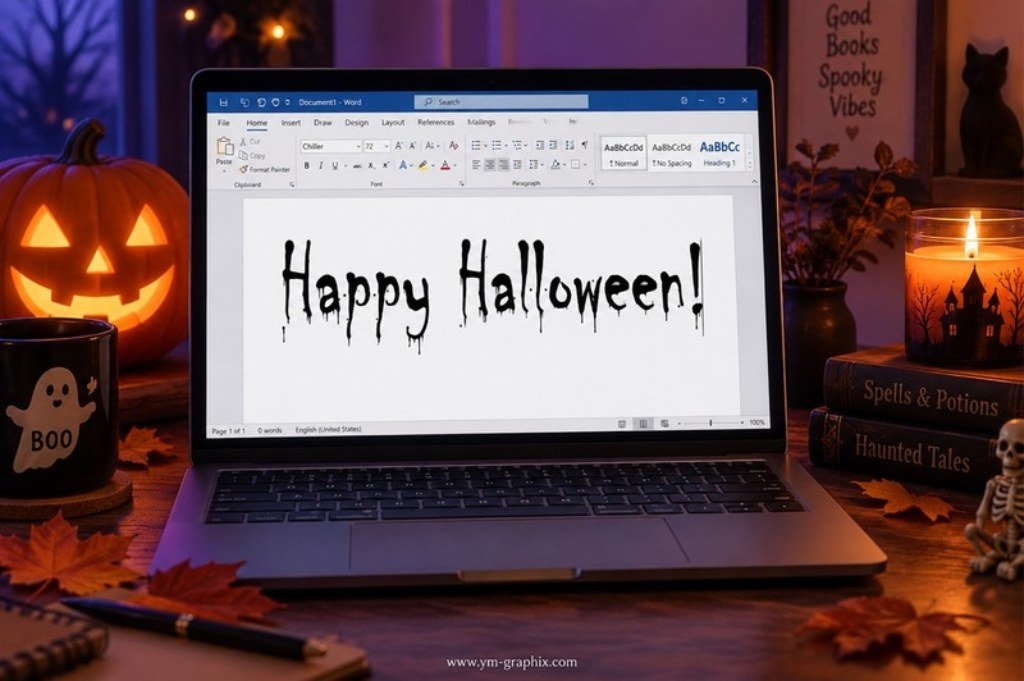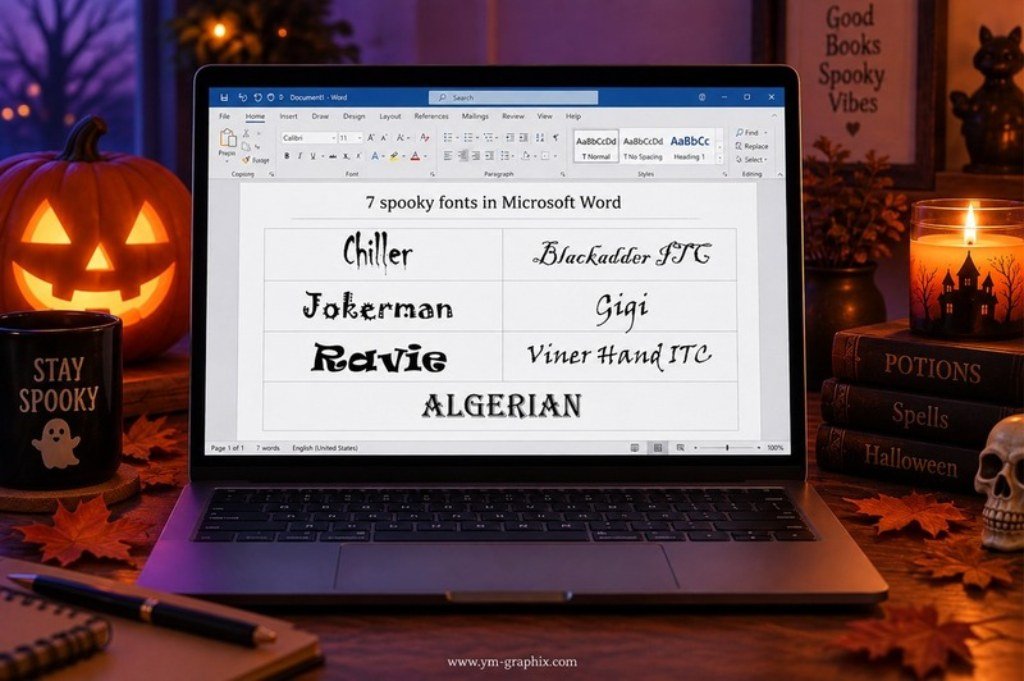
What Is a Spooky Font in Microsoft Word? 7 Halloween Fonts to Try
Quick answer
Chiller is one of the clearest spooky fonts you can use in Microsoft Word. Its irregular, scratchy letterforms feel instantly horror-themed. If you want a darker, more elegant look, try Blackadder ITC; for playful Halloween projects, Jokerman or Ravie can work better.
If you searched “what is a spooky font in Microsoft Word?”, you probably do not need a giant font download list. You need a font that is already available in Word—or easy to activate in Microsoft 365—and a quick way to match it to the mood of your Halloween project.
The short version is simple: Chiller is the best first font to try for a classic scary look. But “spooky” can mean several things: dripping horror, haunted handwriting, gothic elegance, witchy whimsy or cartoon-monster fun. The best Word font depends on which version of spooky you want.
What is a spooky font in Microsoft Word?
A spooky font in Microsoft Word is usually a decorative display typeface with one or more Halloween-style cues: irregular edges, sharp strokes, exaggerated curves, blackletter shapes, rough handwriting or unusual letter proportions.
Chiller is the most direct answer because it already looks distressed and unsettling without extra effects. Microsoft lists Chiller among Office fonts, and it is designed as a dramatic display face rather than a neutral reading font.
Chiller spooky font example in Microsoft Word with Happy Halloween text
Best one-word answer: Chiller.
Best gothic answer: Blackadder ITC.
Best playful answer: Jokerman.
Best monster-cartoon answer: Ravie.
7 spooky fonts to try in Microsoft Word
Seven spooky fonts in Microsoft Word including Chiller Blackadder ITC Jokerman Gigi Ravie Viner Hand ITC and Algerian
1. Chiller — best for classic horror
Chiller is the obvious starting point for haunted-house flyers, scary story covers, warning signs and Halloween party headings. Its uneven, scratchy shapes create tension even before you add color or effects.
Best for: horror titles, haunted houses, scary invitations, classroom Halloween posters.
2. Blackadder ITC — best for elegant gothic Halloween
Blackadder ITC feels more refined than Chiller. Its calligraphic strokes and dramatic flourishes can suggest vampires, old castles, mysterious letters and Victorian Halloween themes without looking like a cartoon.
Best for: vampire invitations, gothic menus, mystery parties, dark romantic designs.
3. Jokerman — best for playful spooky designs
Jokerman is energetic, decorative and strange in a friendly way. It works when your Halloween design should feel silly or kid-friendly rather than frightening.
Best for: kids’ Halloween parties, classroom printables, pumpkin events, playful signs.
4. Gigi — best for whimsical witchy lettering
Gigi has a loose, curly personality that can feel magical or mischievous. It is useful when you want a witchy look without heavy blackletter or horror styling.
Best for: potion labels, witch-party invitations, cute magic themes, whimsical headings.
5. Ravie — best for cartoon monsters
Ravie is chunky, bouncy and exaggerated. It is not scary in the traditional horror sense, but it has the oversized personality that works well for friendly ghosts, monsters and children’s Halloween projects.
Best for: monster themes, kids’ posters, candy signs, Halloween games.
6. Viner Hand ITC — best for haunted notes
Viner Hand ITC gives text a handwritten, slightly unstable feeling. That makes it useful for fake diary pages, scavenger-hunt clues, mysterious notes and other designs that should feel personal and imperfect.
Best for: haunted notes, clues, spooky journals, murder-mystery props.
7. Algerian — best for vintage haunted posters
Algerian is decorative, bold and old-fashioned. It does not look scary by itself, but in the right context it can create a vintage carnival, cursed museum or old horror-poster mood.
Best for: vintage Halloween posters, carnival themes, old-world signs, dramatic headings.
Which spooky Word font should you choose?
Choose by mood rather than by the word “Halloween.” For pure horror, start with Chiller. For gothic elegance, use Blackadder ITC. For witchy or magical designs, try Gigi. For cute spooky projects, Jokerman or Ravie are safer choices.
That distinction matters because a font can be technically “Halloween” and still feel wrong for your project. A child’s pumpkin worksheet and a vampire dinner invitation should not use the same visual language.
Why is Chiller a popular Halloween font?
Its uneven, rough strokes already communicate instability and horror, so it creates a spooky mood without requiring complicated text effects.